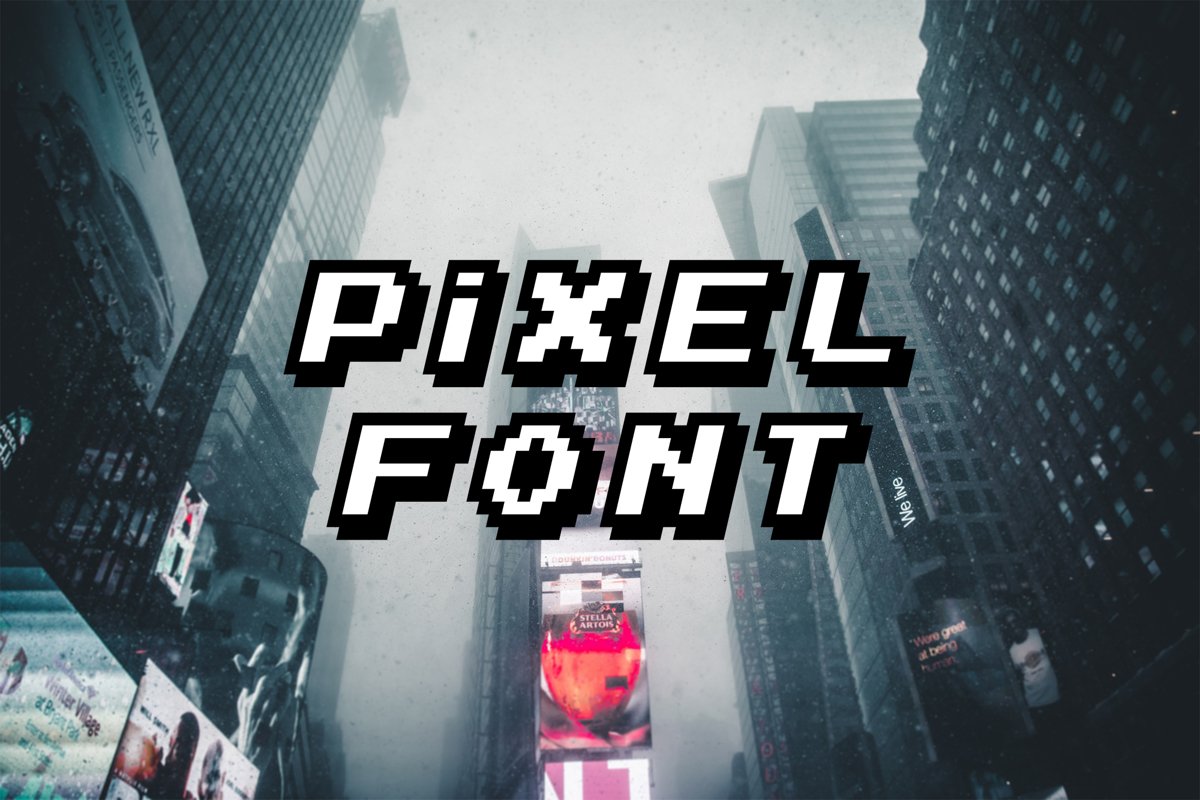
Pixel font / 8-bit fonts / vintage font.
• Pixel fonts from squares, 8 bit, 16 bit letters and numbers for your design. Three different fonts provide an opportunity to choose a more suitable design, font with a stroke, a slanted font, and a regular font in a package, all objects are made in vector format that can be used in any size without loss of quality.